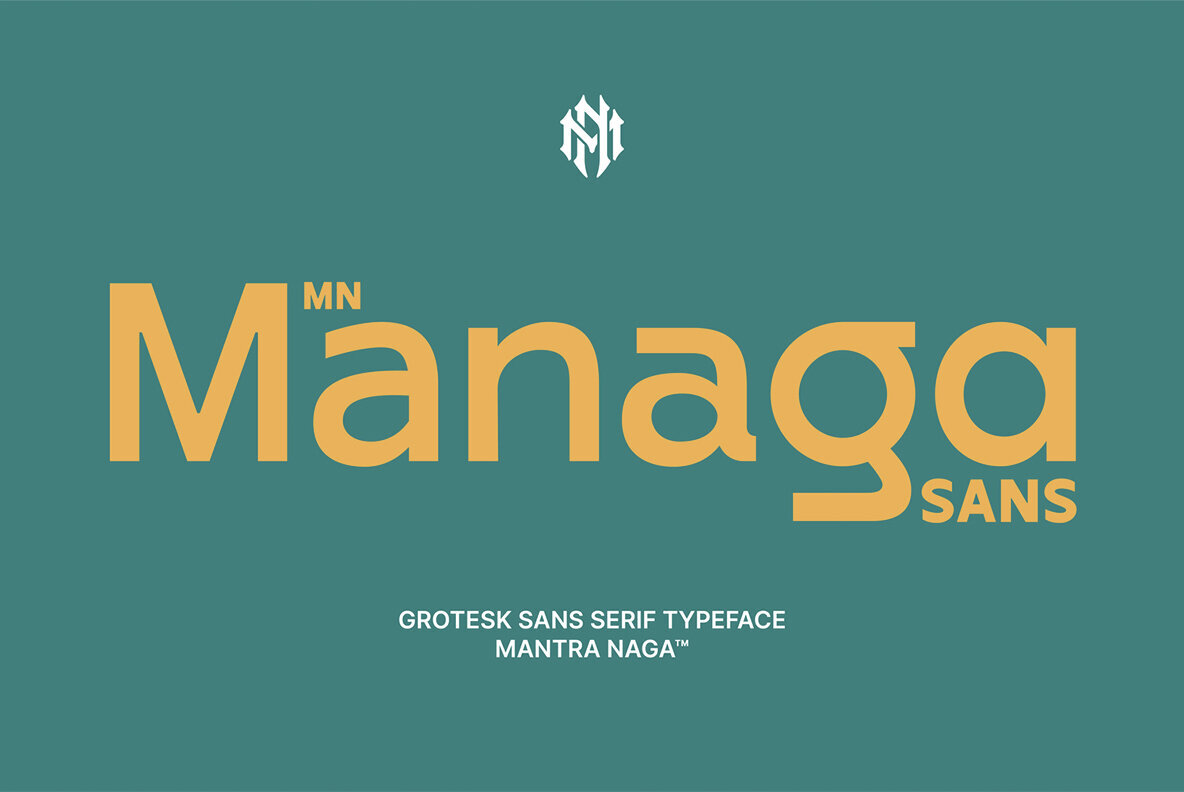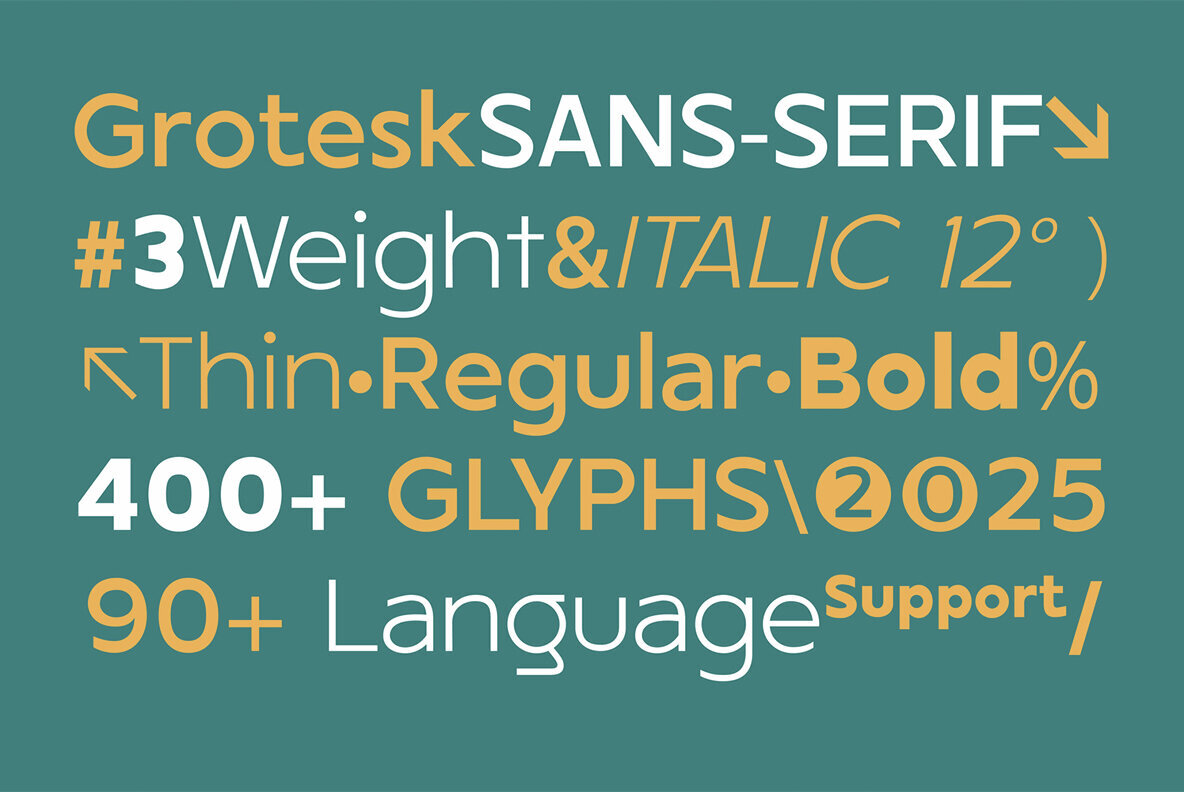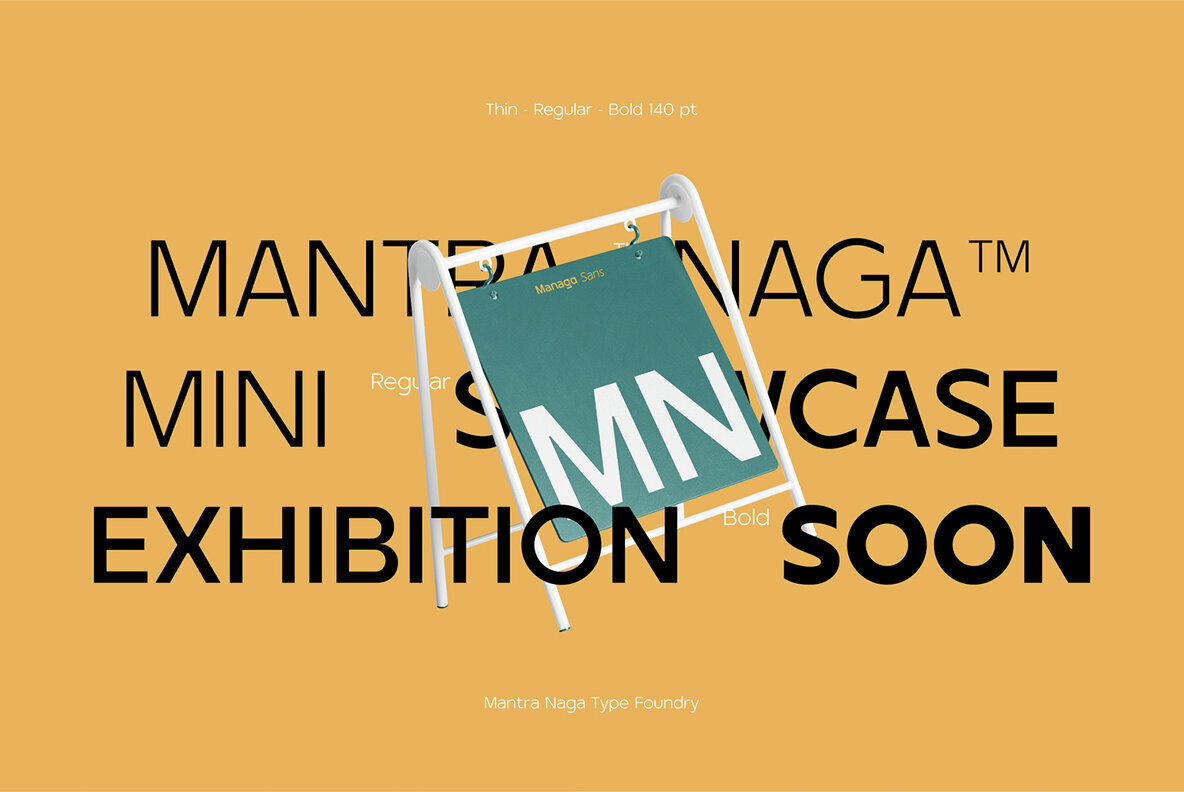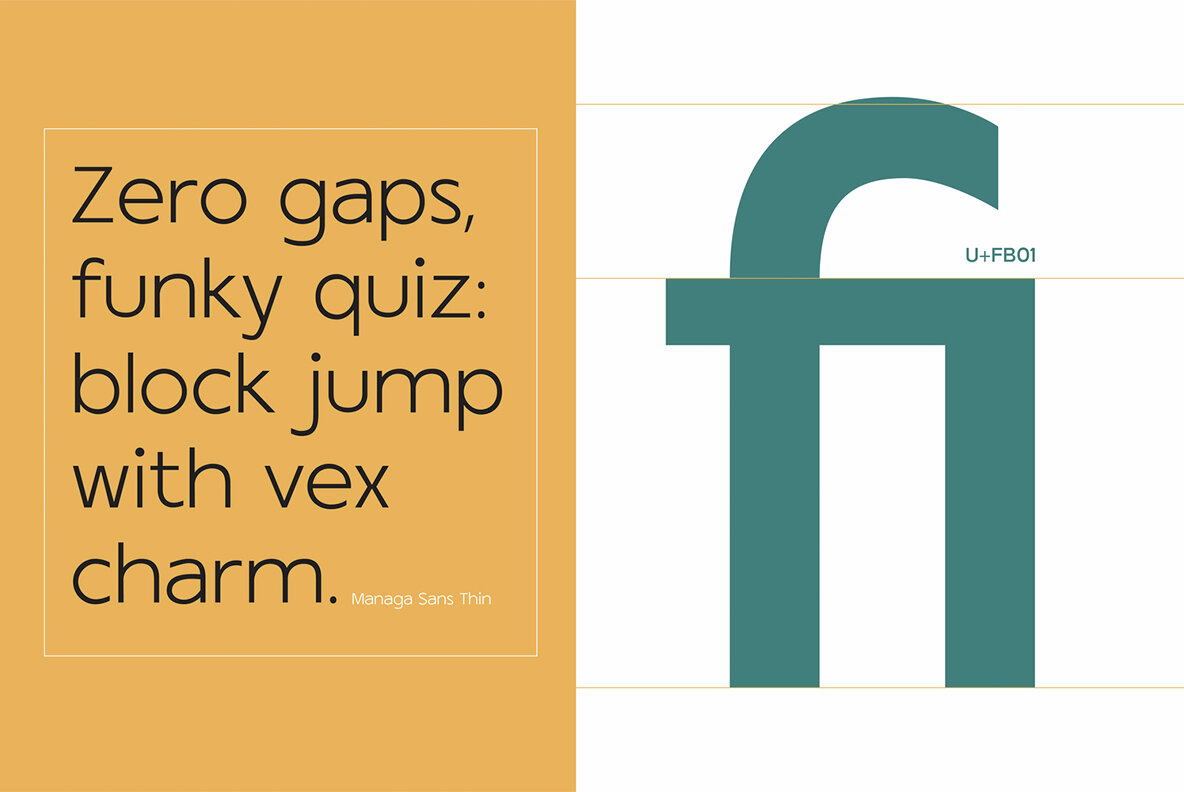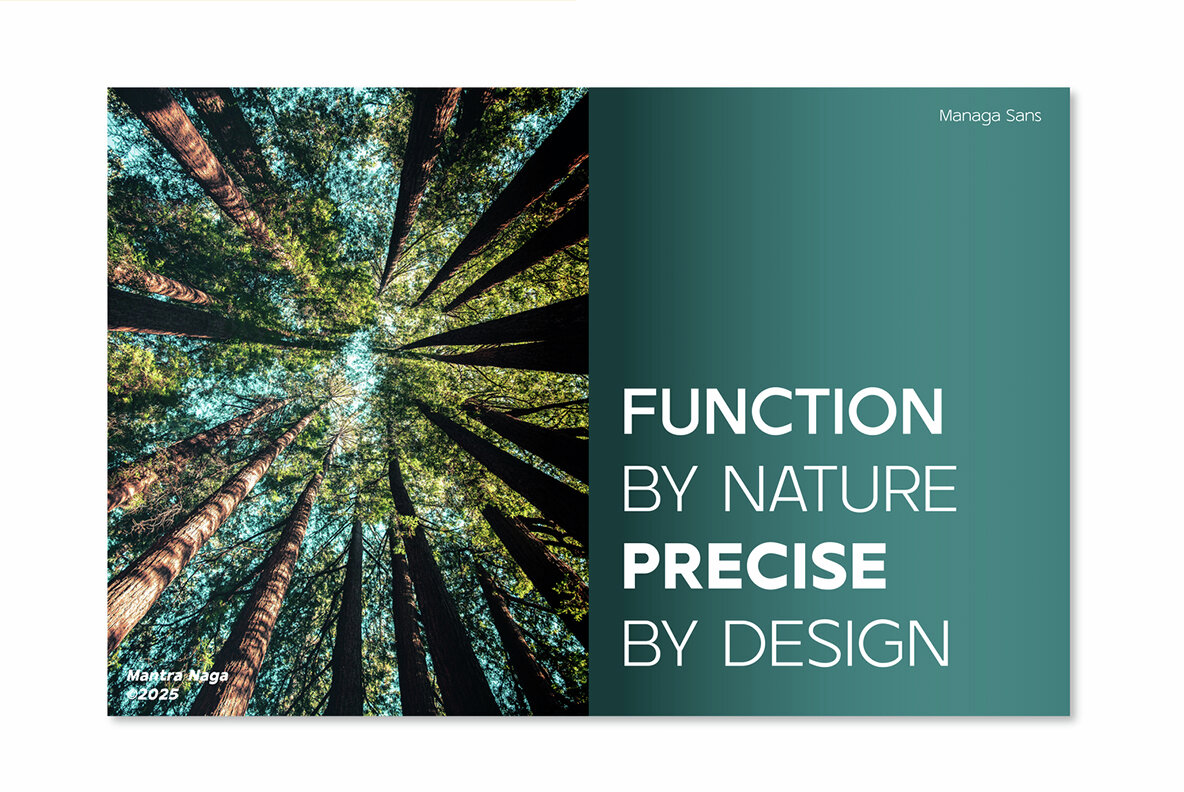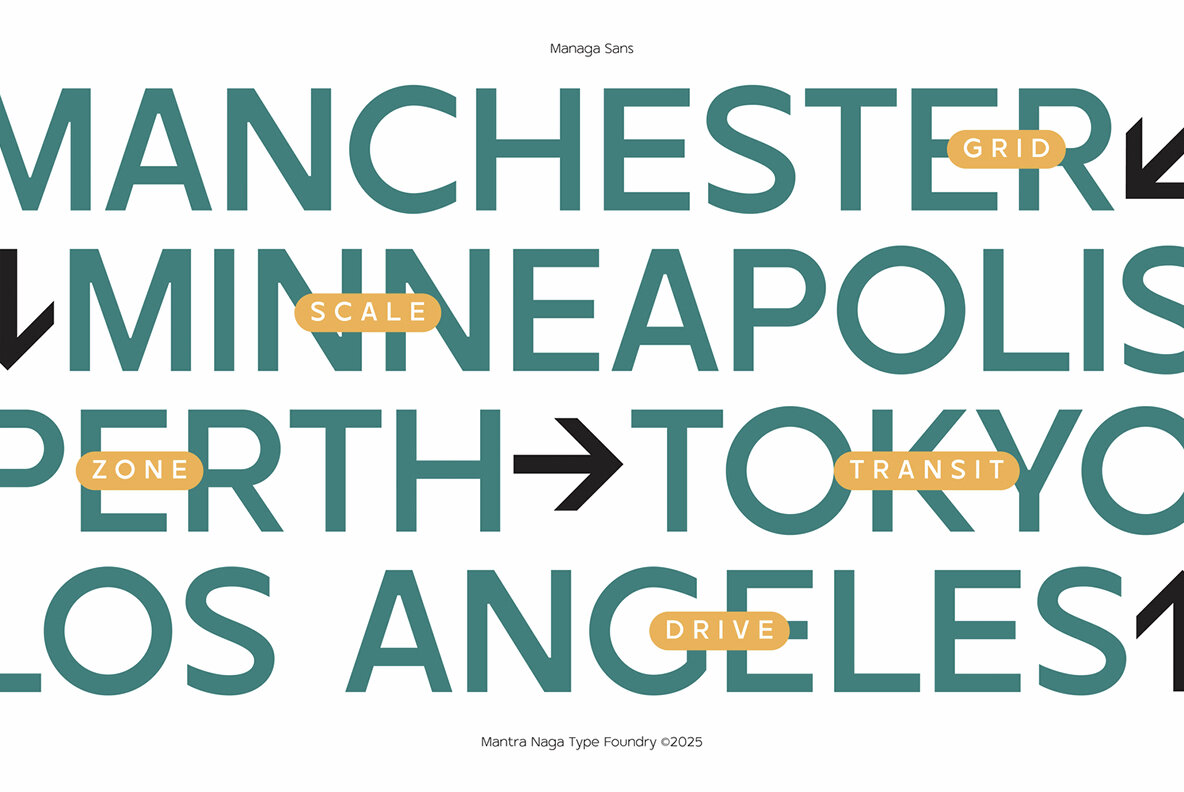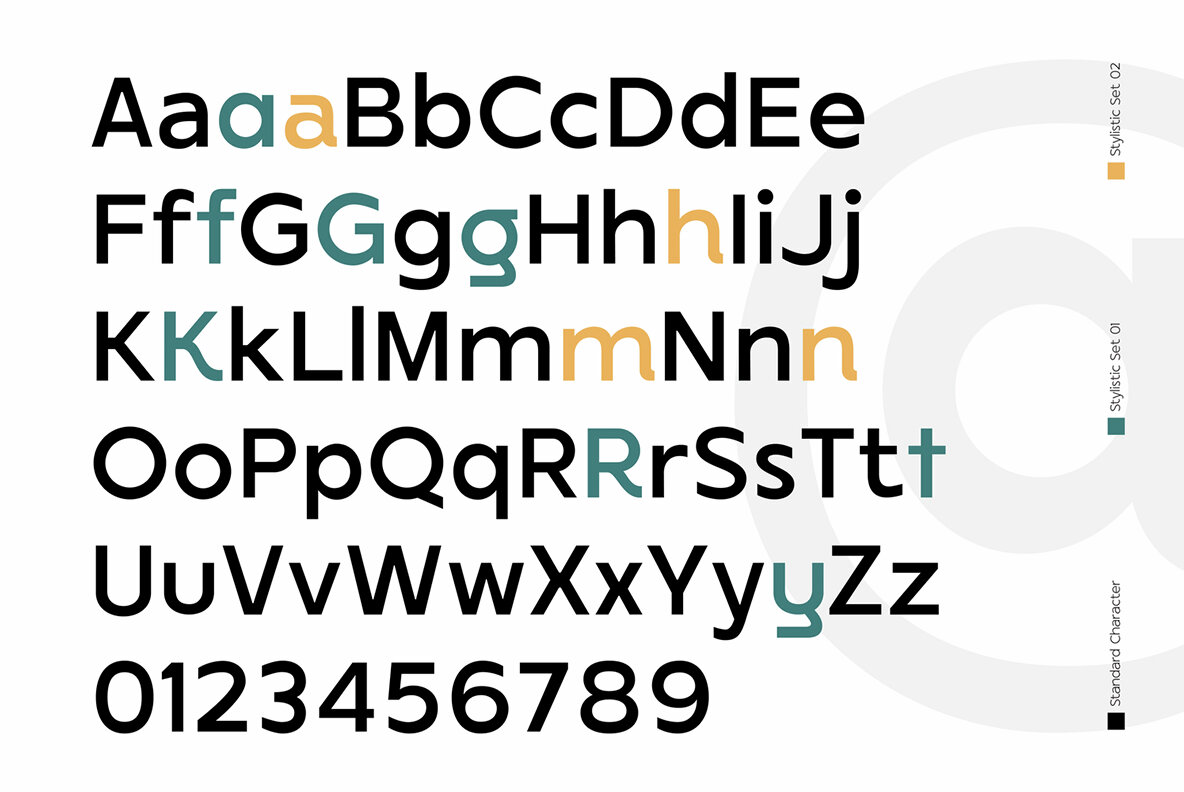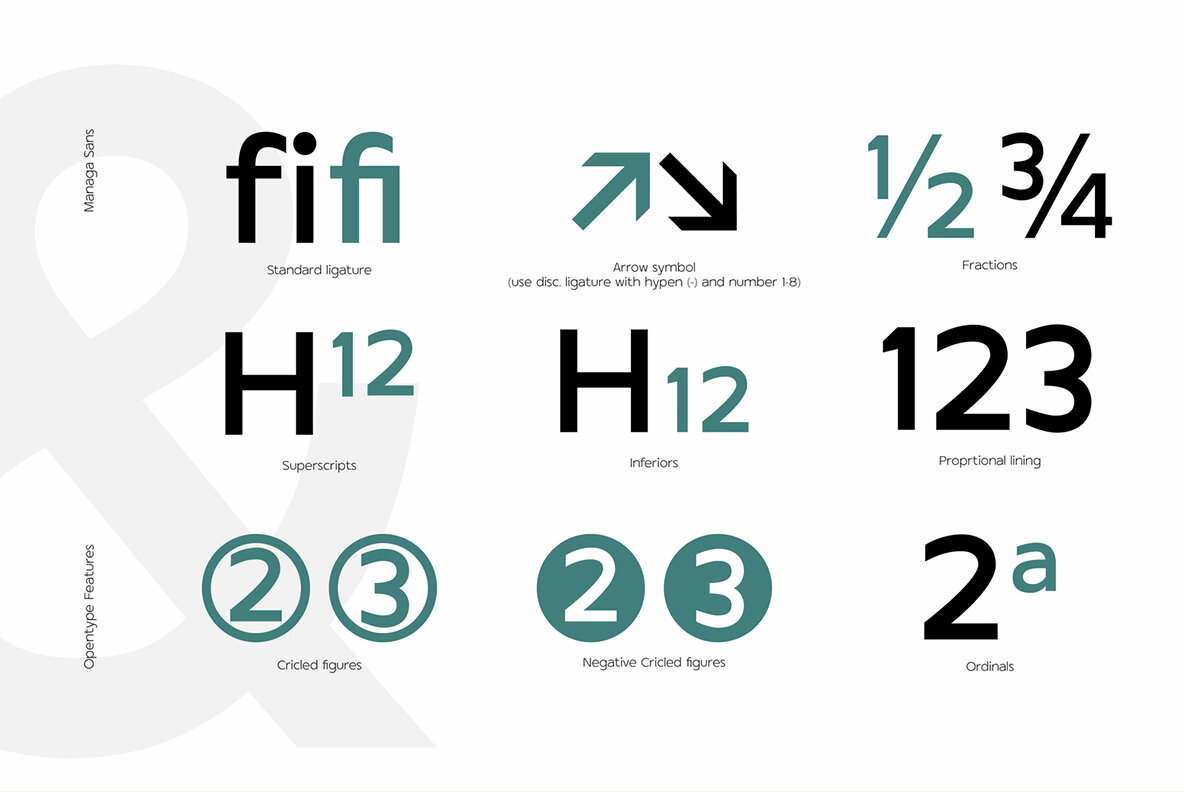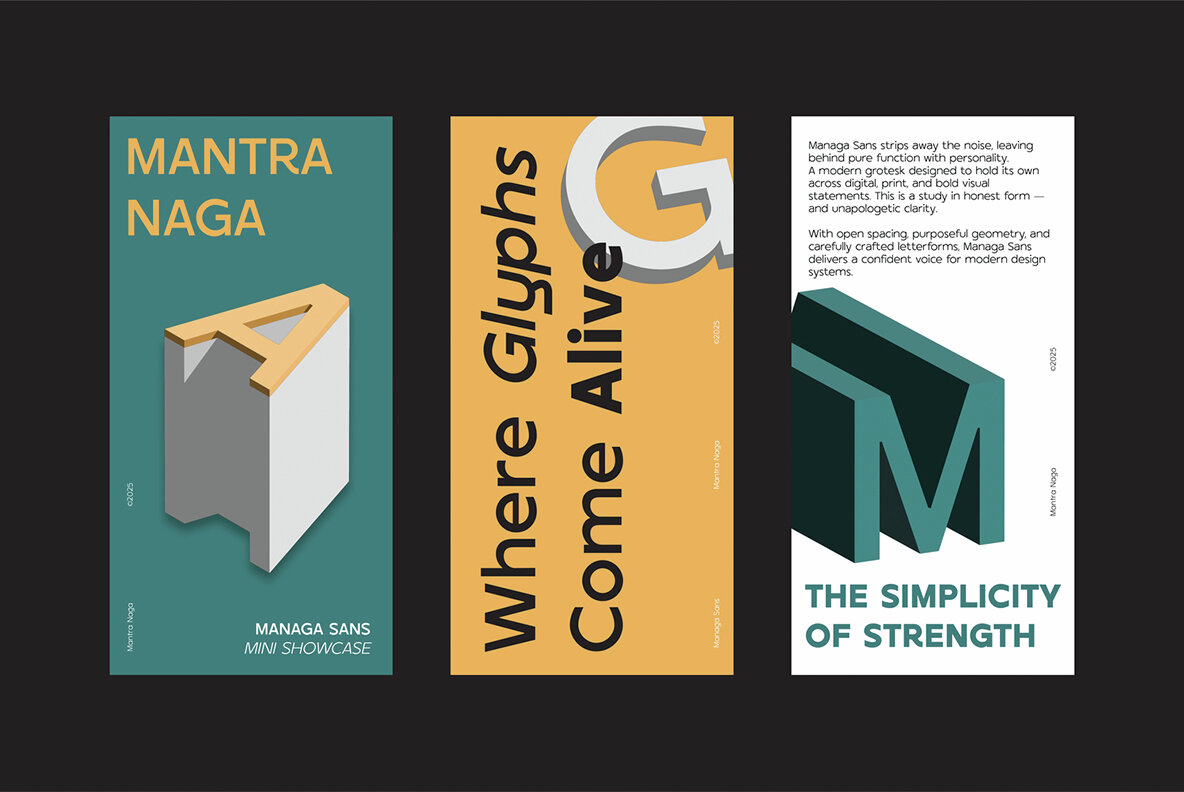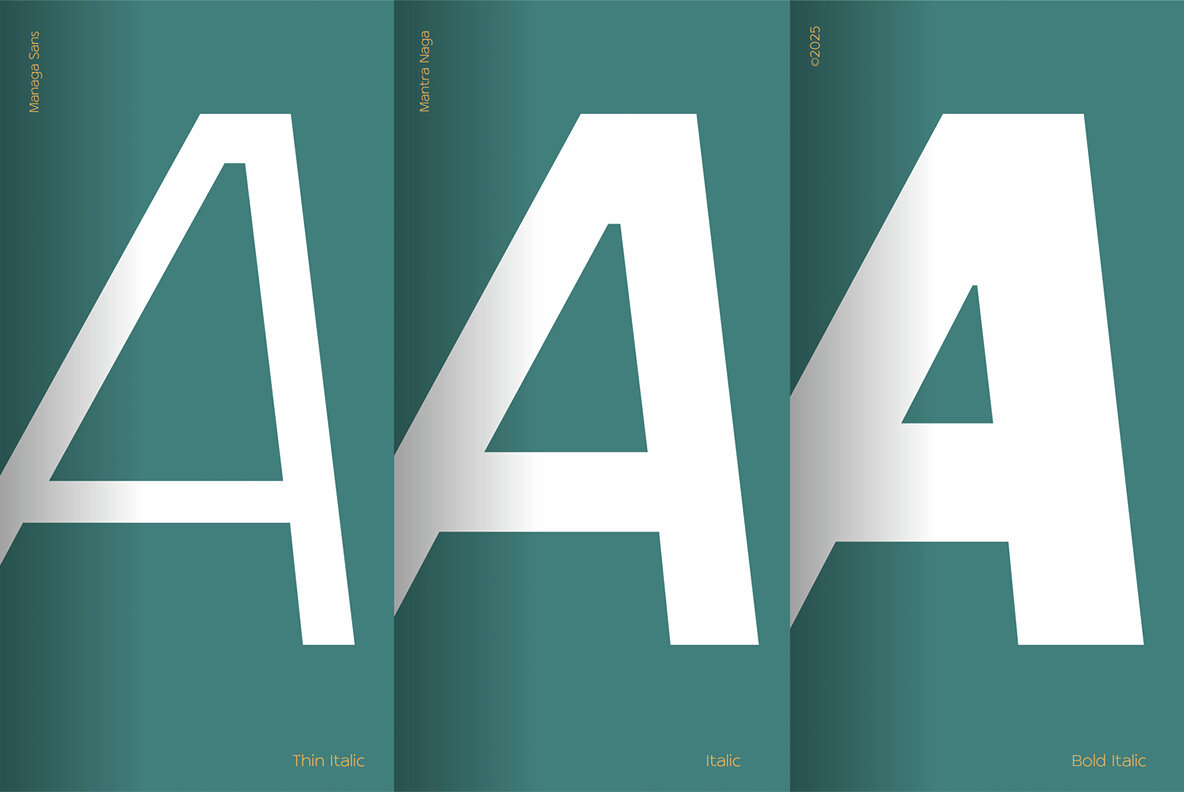
MN Managa Sans Font
Experience the seamless blend of geometric precision and humanist charm with MN Managa Sans, a grotesk sans serif typeface meticulously crafted for modern aesthetics. Its clean, proportional shapes and consistent stroke weights bring clarity and elegance to any design project, while the vertical stroke endings add a touch of warmth. Ideal for everything from bold headlines to detailed editorial work, Managa Sans adapts seamlessly to your minimalist design visions. This second release in the Managa series encapsulates our dedication to versatile, contemporary typography that meets the needs of today’s designers.MN Managa Sans - A Typeface of Subtle Sophistication
Comprehensive Style and Language Support